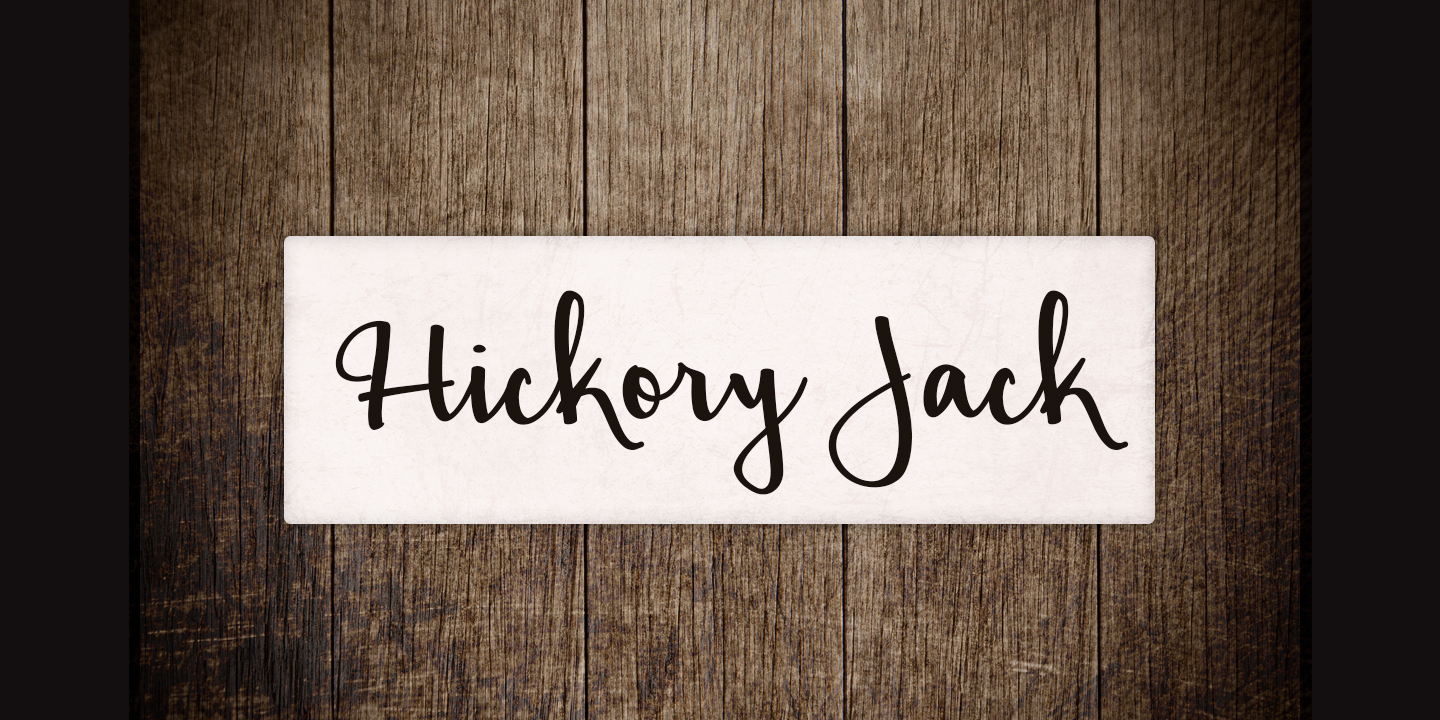
Hickory Jack is a hand drawn and script font family. This typeface has two styles and was published by Brittney Murphy Design.
Hickory Jack is a weighted script. Striking, yet legible. Great for both headlines or bylines! Also available in light!